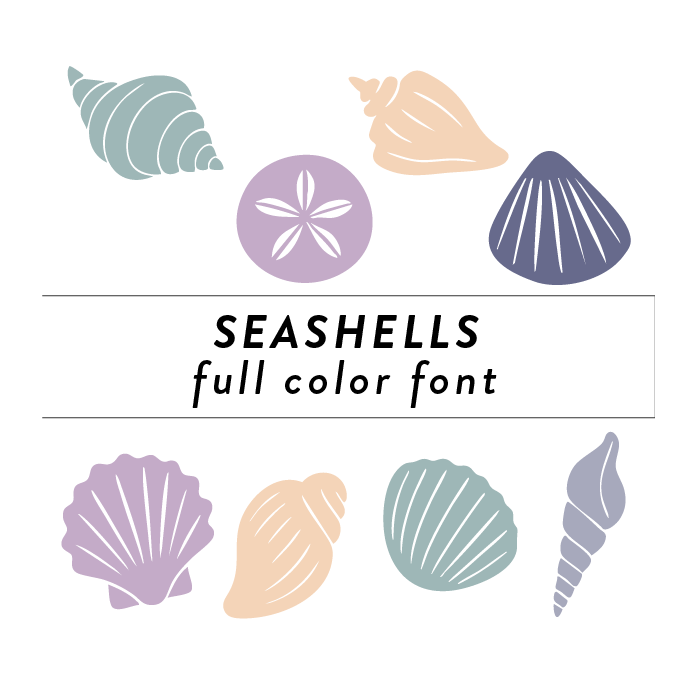
The Seashells Full Color Font is a vibrant and playful font design inspired by the beach, With its intricate details and soft colors, this font is perfect for summer-themed projects, party invitations, and beach-related designs. Its unique style adds a fun and whimsical touch to any creative project.